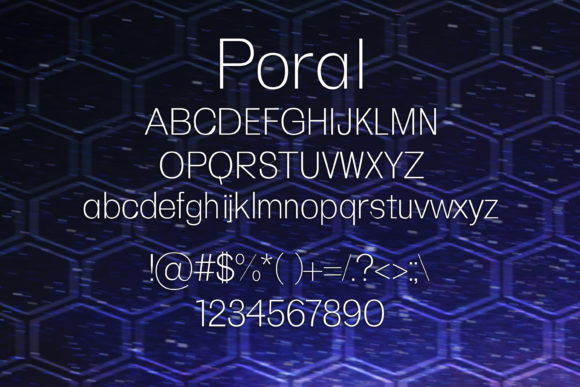
Introduction to Poral Font Font
Fonts play a crucial role in design, and the Poral Font font is a typeface that brings both character and versatility to any project. Whether you’re working on a branding project, a website, or a print design, the Poral Font font offers a unique style that can elevate your work.
Poral is a classic sans serif font with a simple and clean look.
Key Features of Poral Font Font
Why Choose Poral Font Font?
The Poral Font font is more than just a typeface – it’s a design tool that helps you communicate your message with style and clarity. Its unique character set and versatile design make it suitable for a wide range of applications, from elegant invitations to bold headlines.
With its carefully crafted letterforms and balanced proportions, the Poral Font font ensures readability and visual appeal across all mediums.
What makes Poral Font font special?
The Poral Font font stands out with its unique design, exceptional readability, and versatility across various design applications.